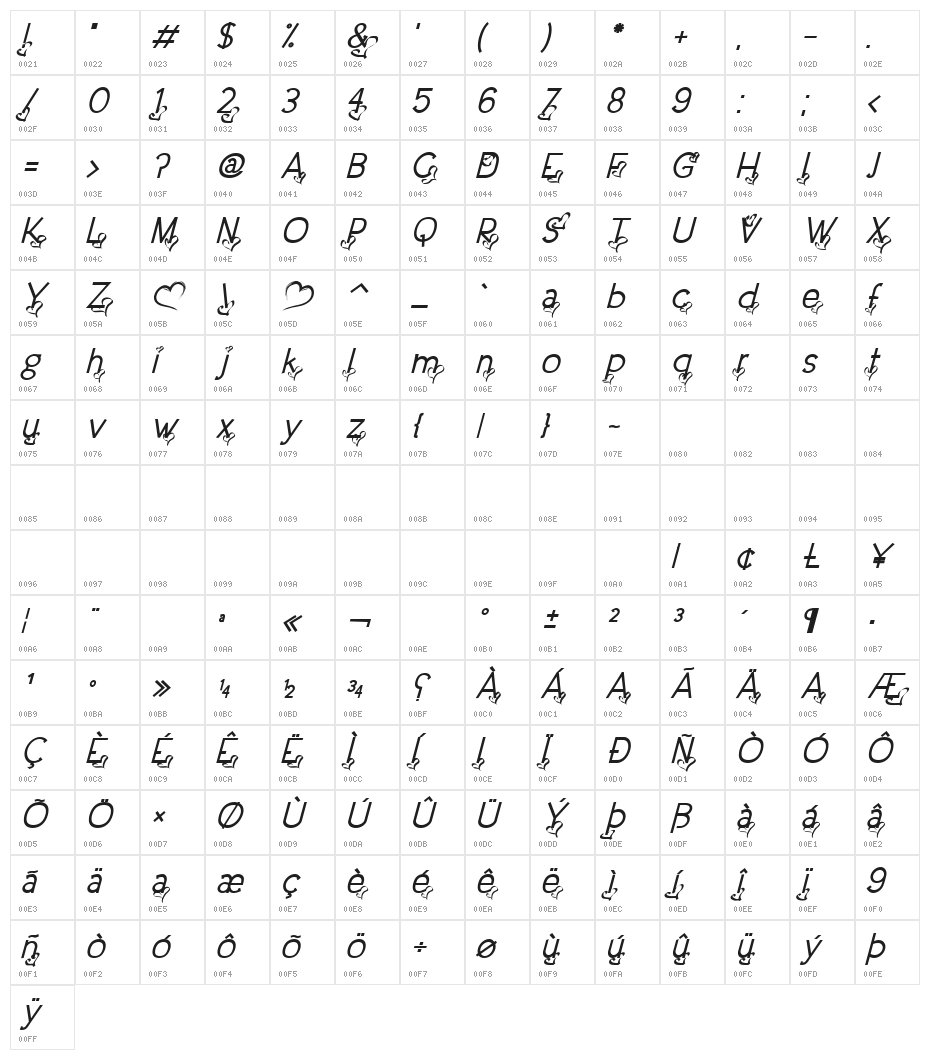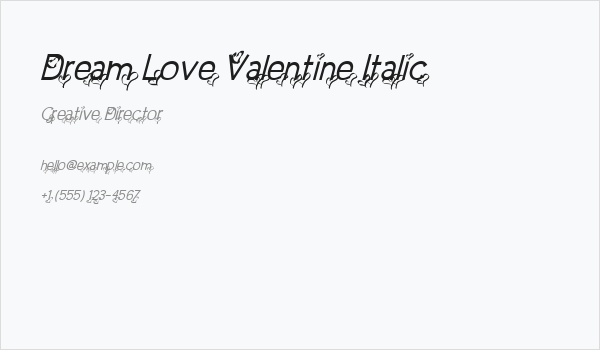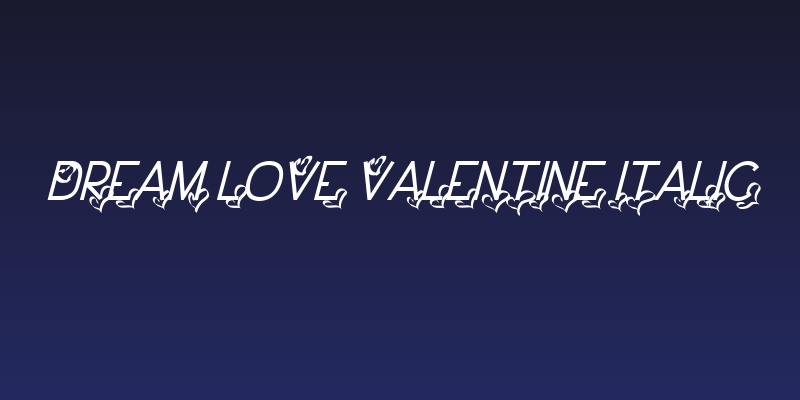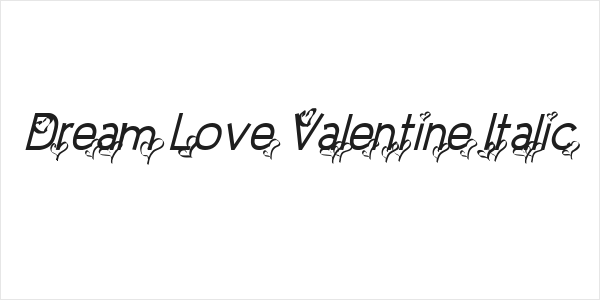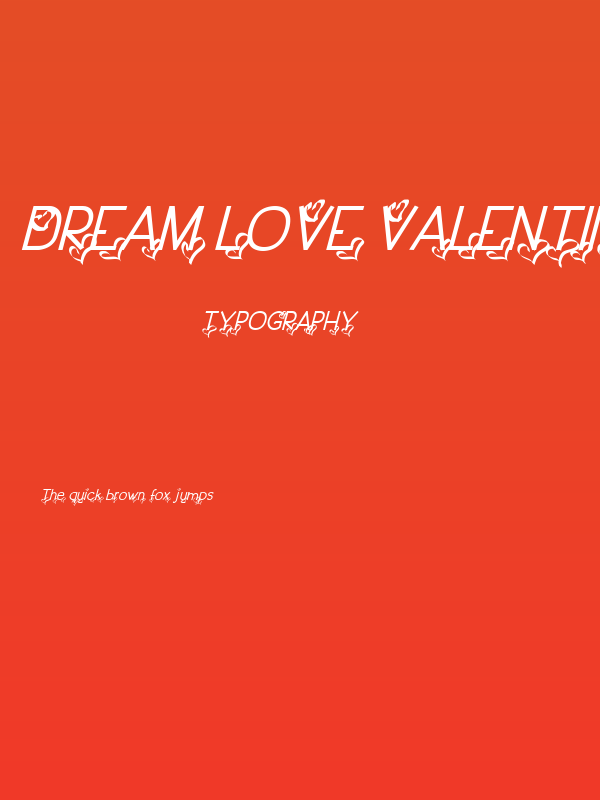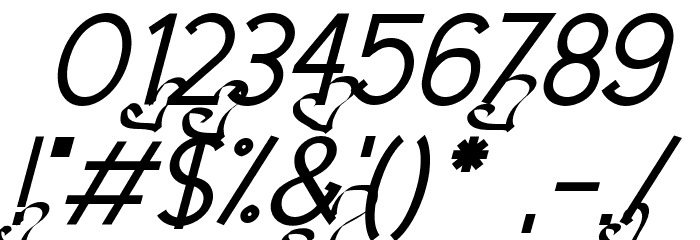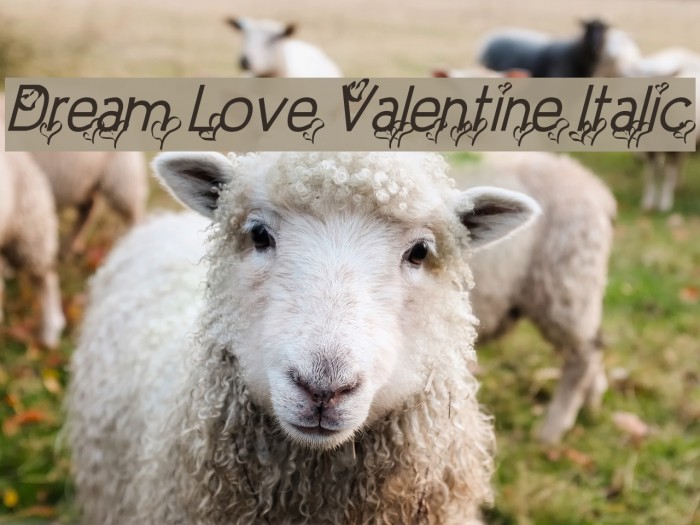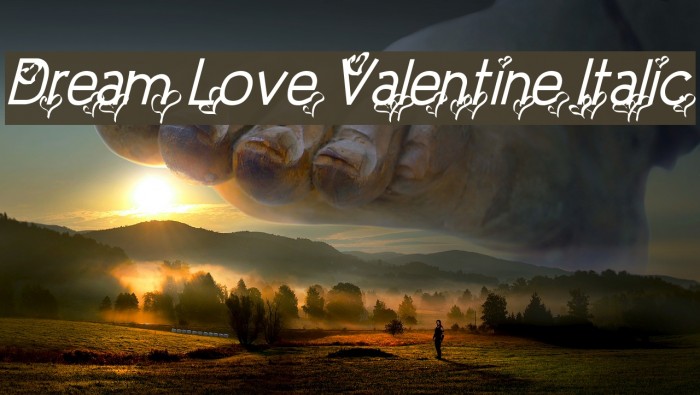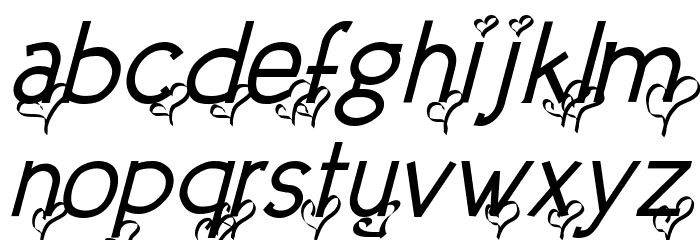
Dream Love Valentine Italic Font
Dream Love Valentine Italic Description
This font features a playful and romantic design, incorporating heart motifs into each character. The letters are italicized, adding a sense of movement and elegance. The strokes are smooth and slightly curved, giving a soft and inviting appearance. The heart embellishments are integrated seamlessly, making it ideal for themes related to love and affection. The font maintains readability while adding a decorative touch, making it suitable for special occasions or themed projects.
| Overall Style | Romantic, Decorative |
| Use Case | Headlines, Invitations, Decorative text |
| Proposed Projects | Ideal for Valentine's Day cards, wedding invitations, romantic event posters, and love-themed branding. |